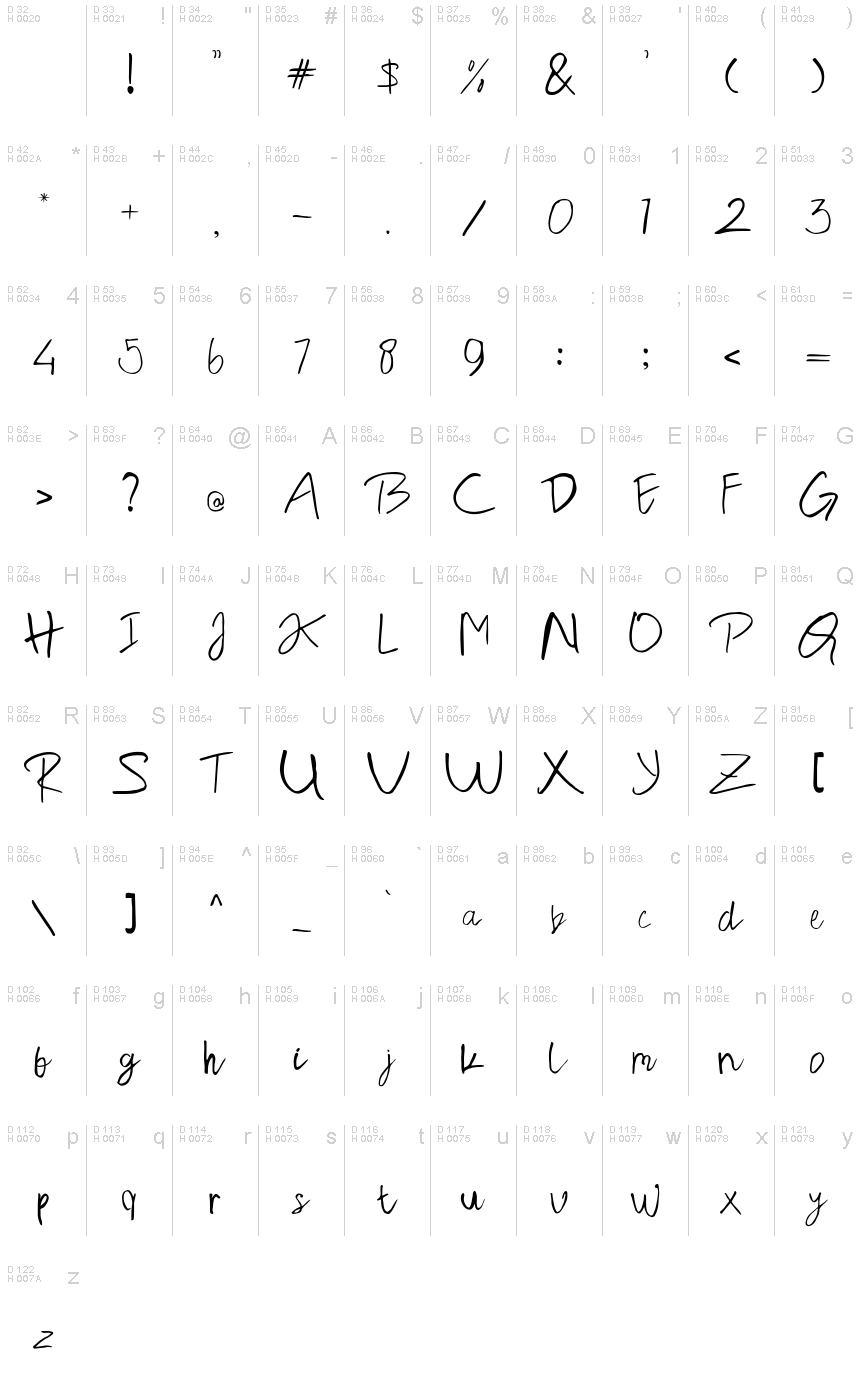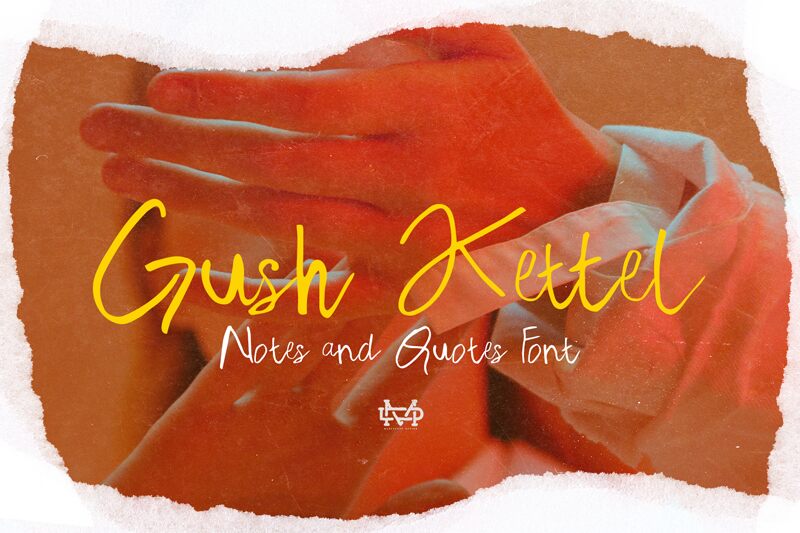
Gush Kettel Demo Regular
Gush Kettel font is a delicate and elegant handwritten font from the talented madeDeduk. The light weight and fluid movements of the letters bring an expressive overall look that’s instantly appealing and stylish. Also notable about this font is its sense of harmony that’s achieved thanks to the nicely balanced letters. With all of these characteristics, Gush Kettel feels like a casual style script with calligraphic undertones.
Some project ideas for this free handwritten font include whimsical invitations, greeting cards, book covers, quotes, art prints, photography logos, video overlays, and social media graphics. It can also be used for branding in fashion or lifestyle industries where elegance and femininity are both needed. Other ideas include stationary design such as magazines or brochures. This awesome resource will bring a special feel to any project!